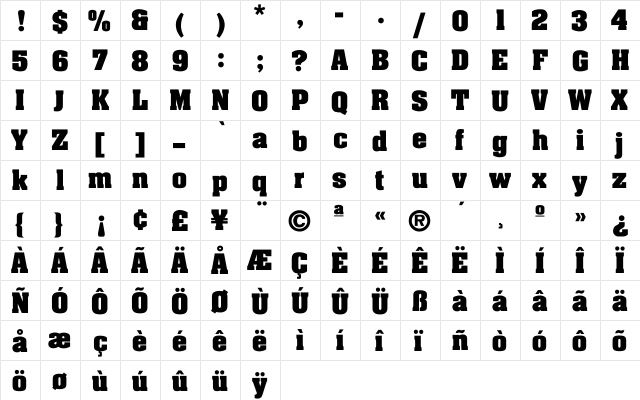
Aachen-Bold Regular
Design Context for Aachen-Bold Typeface
Aachen-Bold offers clean, dependable letterforms without strong stylistic allegiance, making it a practical choice for designers who need flexibility. Its bold stroke weight gives it real presence on the page.
Pro Tip: Use Aachen-Bold in both headline and body roles to test its range before committing to a single application.